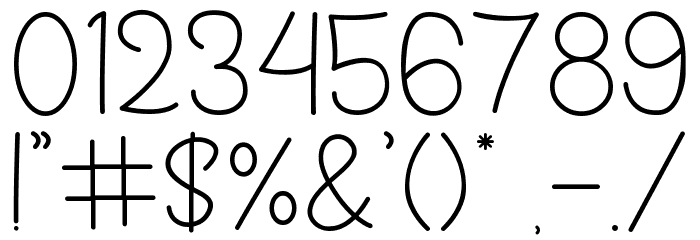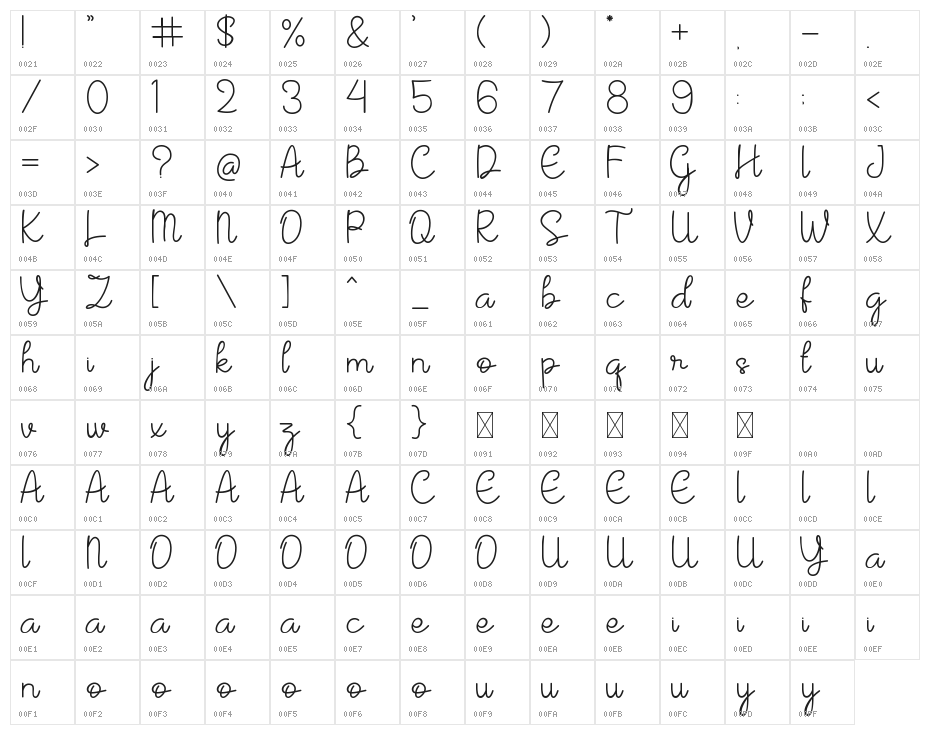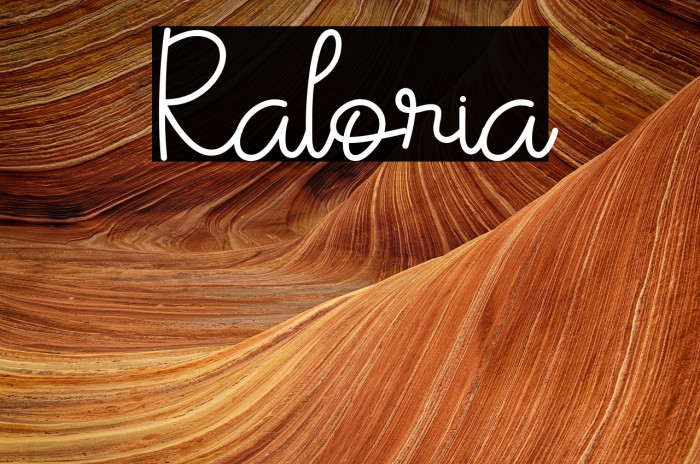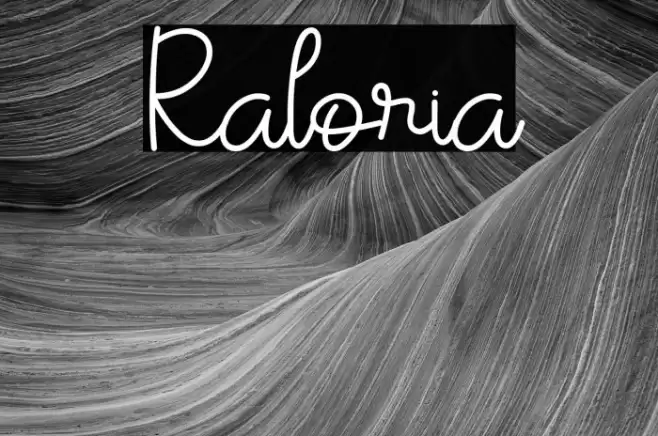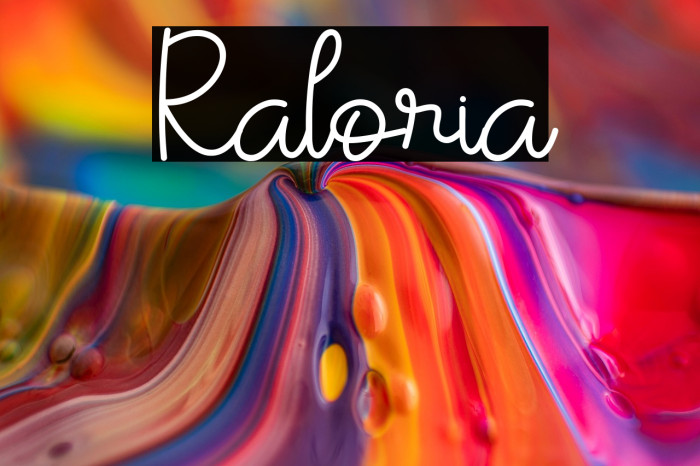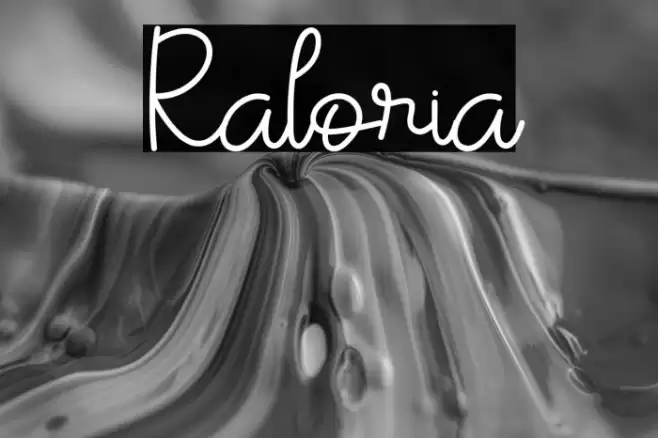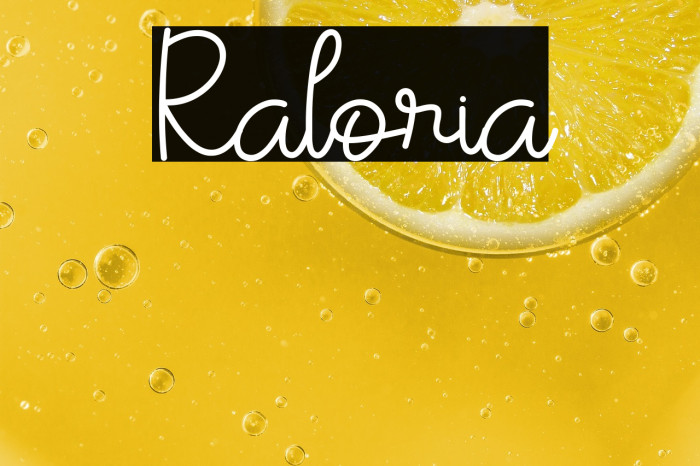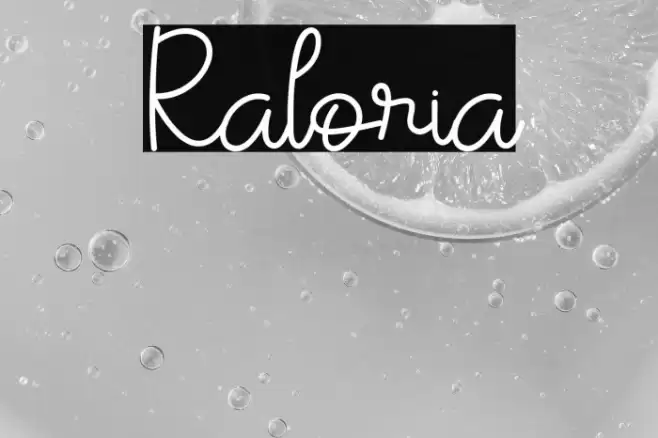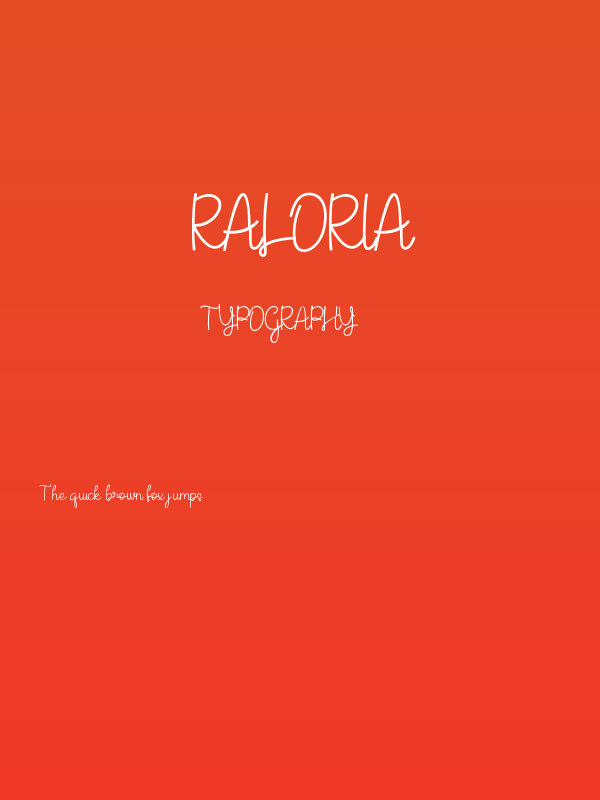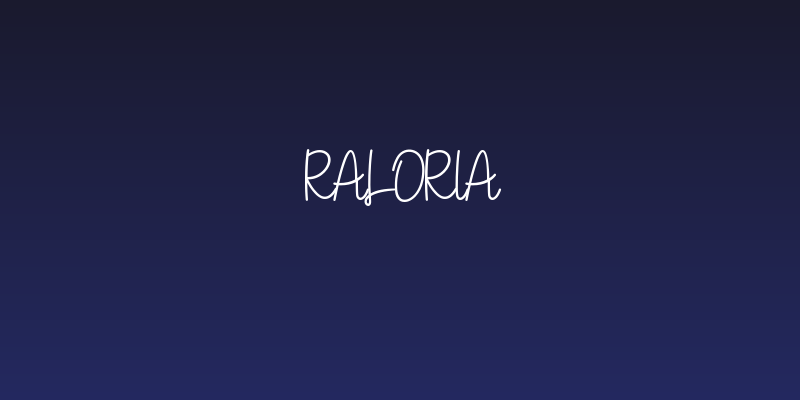
Raloria Font
Raloria Description
This font features a playful and casual handwritten style, characterized by its fluid and connected letterforms. The uppercase letters maintain a consistent height with a slight slant, while the lowercase letters exhibit a more pronounced cursive quality, enhancing the overall informal aesthetic. The numerals are rounded and maintain the same playful style, ensuring readability. Special characters are integrated seamlessly, matching the whimsical nature of the font. This font is ideal for projects that require a personal touch, such as invitations, greeting cards, and creative branding.